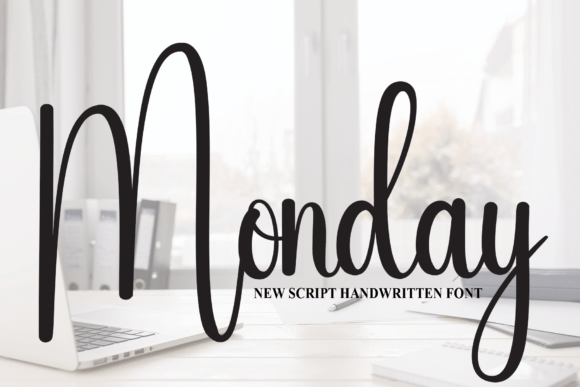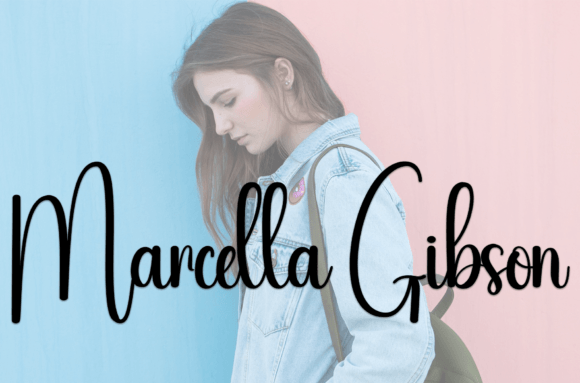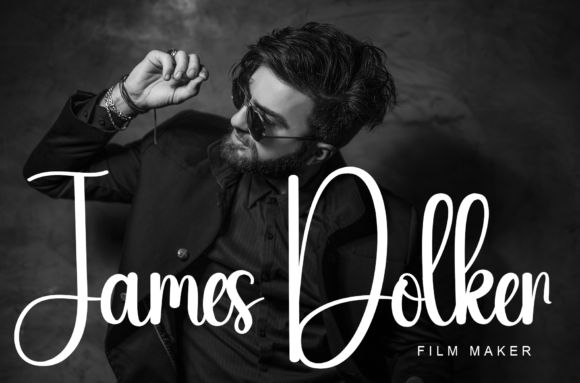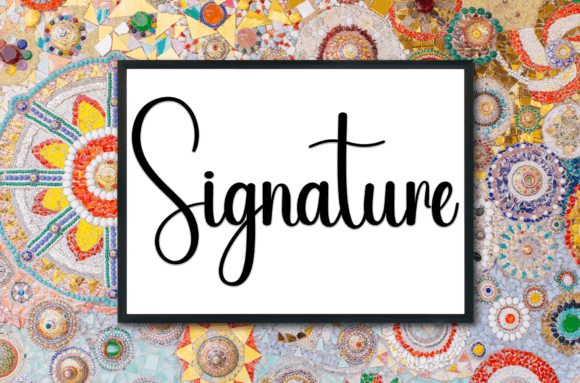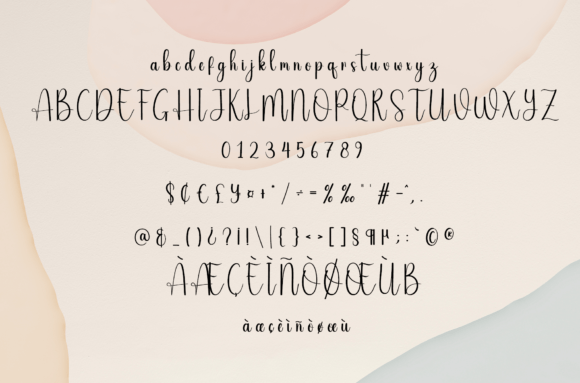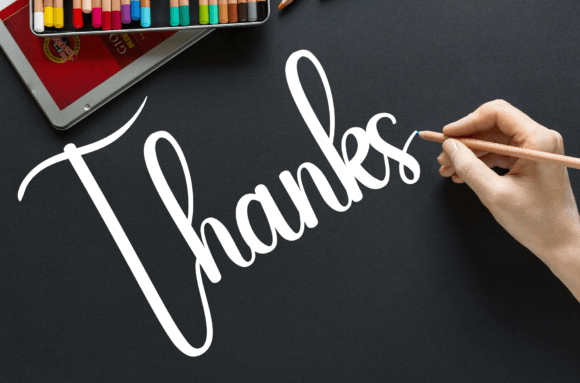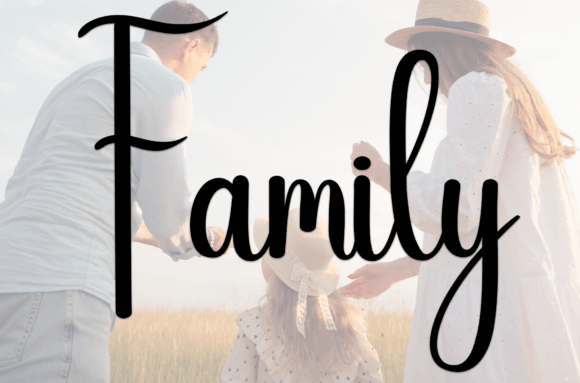
Monday Font
About Monday Font
Monday is a sweet and friendly handwritten font that brings warmth and positivity to any design. With its smooth curves and inviting style, Monday feels approachable and personal. Whether you’re designing wedding invitations, greeting cards, or social media graphics, this font helps you share your message in a heartfelt way.
This font combines clean lines with a playful spirit. Each letter looks as if it was written by hand, making your text feel authentic and memorable. If you love fonts that feel relaxed and natural, Monday will quickly become a go-to in your collection.
Perfect for Wedding Invitations and Greeting Cards
Monday shines in projects that celebrate life’s special moments. Its friendly appearance is ideal for:
• Wedding Invitations: Set the tone for a romantic event with elegant, personal lettering.
• Save-the-Date Cards: Announce your big day with warmth.
• Thank-You Notes: Show gratitude with a handwritten feel.
• Birthday Cards: Make celebrations extra cheerful.
• Baby Showers: Add a soft, joyful look to your announcements.
When you need your designs to feel sincere and loving, Monday delivers every time.
Versatile for Any Project
One of the best things about Monday is its adaptability. This font works beautifully in:
• Social Media Posts: Share quotes or updates with a relaxed touch.
• Logos and Branding: Perfect for small businesses that want a friendly vibe.
• Product Packaging: Bring a handmade feel to your labels.
• Printables: Make planners, journals, or art prints feel more personal.
• Crafts: Ideal for cutting machines like Cricut or Silhouette.
No matter where you use it, Monday adds a spark of happiness and authenticity.
Why Designers Love Monday Font
Here’s why this font is a must-have:
• Handwritten Style: Looks genuine and personal.
• Friendly Feel: Adds warmth and positivity.
• Clean and Legible: Easy to read at any size.
• Timeless Look: Works in modern and classic designs.
• Flexible Use: Great for both print and digital projects.
Monday is the kind of font that feels familiar and fresh all at once.
Quick Design Tips
To make the most of Monday:
1. Pair with Sans-Serif Fonts: Use a simple font alongside Monday to keep your design clean.
2. Use Soft Colors: Pastels and neutrals bring out its gentle charm.
3. Add Space: Let the letters breathe for an elegant layout.
4. Include Illustrations: Combine with floral or hand-drawn elements.
5. Emphasize Headlines: Use larger text sizes to highlight the font’s detail.